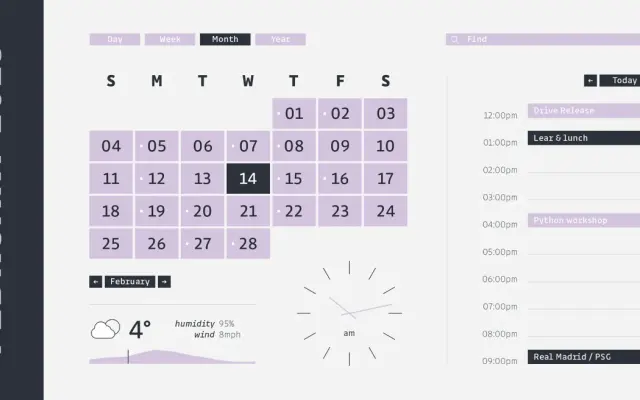
Drive Prop
A proportionally spaced member of the Drive superfamily, designed for business communication where legibility and economy of space are priorities.
Drive Prop is one of three coordinated styles within the Drive superfamily, alongside Drive and Drive Mono. Nine weights from Hairline to Extra Bold, each with matching italics, are available as static fonts or as variable font files. Open counterforms and near-monolinear strokes maintain legibility at small sizes and in adverse conditions, making it suited to both print and digital environments where density of information matters.
Drive Prop is described as a humanist sans serif with open counterforms and nearly monolinear strokes, optimised for efficient legibility in business and UI contexts.